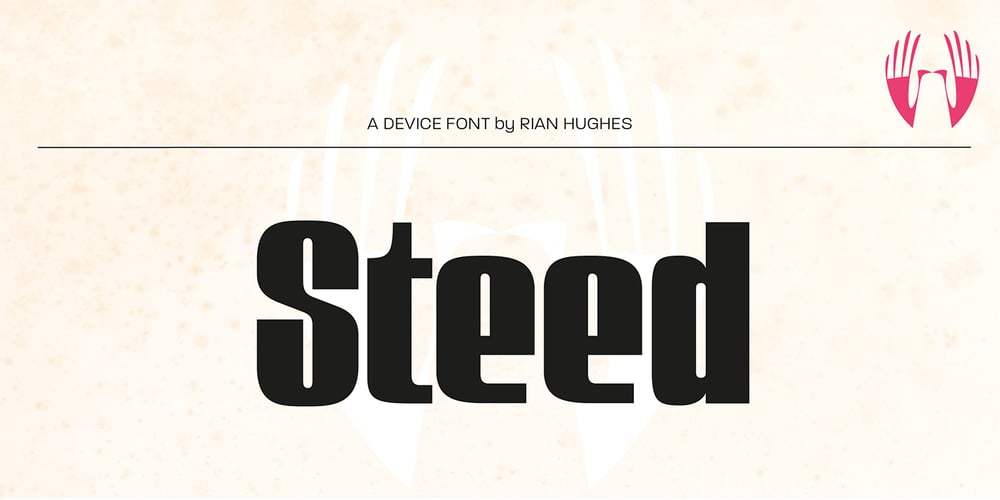
Steed Font Family was designed by Rian Hughes and published by Device. Steed contains 4 styles and family package options. A condensed and bold obround sans inspired by 60s condensed inserat faces, with a more pronounced thick/thin stress as seen on the titles of the Avengers TV show.